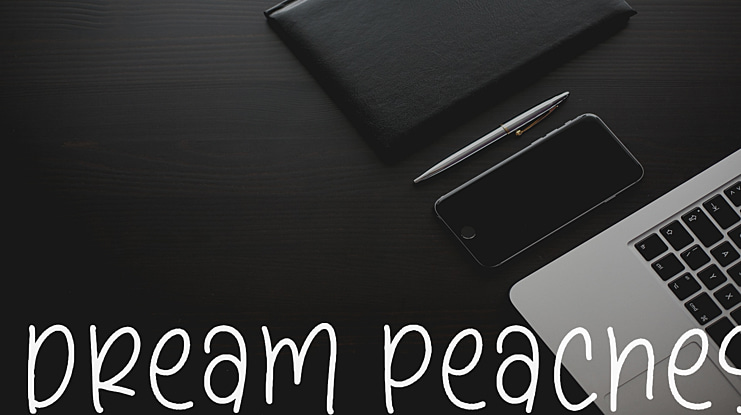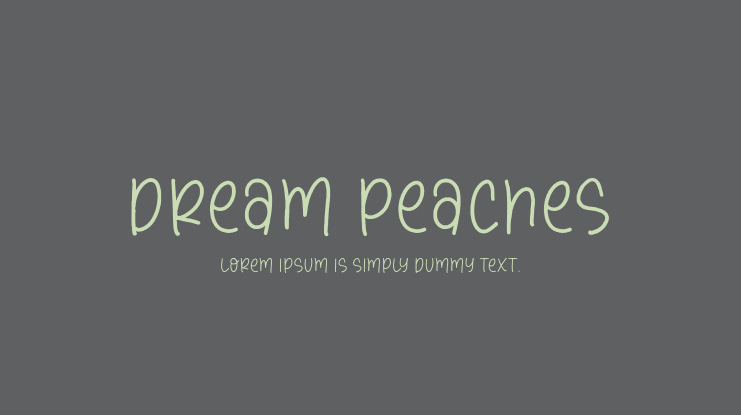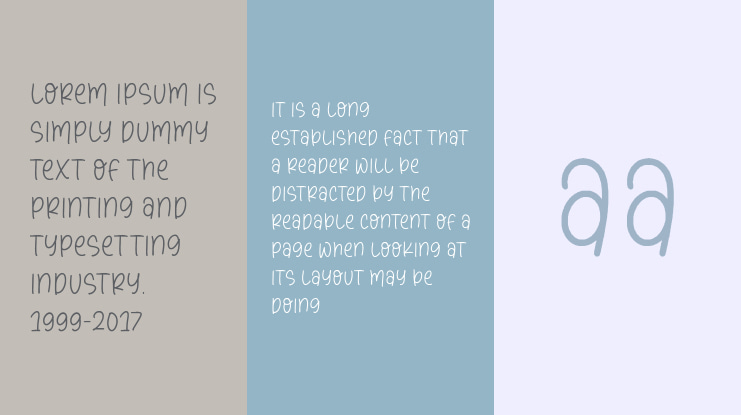
Dream Peaches Font
Introducing by Balpirick Studio.
Dream Peaches - a monoline handwritten that's clean, elegant and perfect for a range of design projects! With its smooth, effortless lines and understated sophistication, this font is the perfect choice for those who want a modern look that's still timeless in its appeal.
Crafted with precision and care, this font is incredibly versatile and can be used for a range of design projects, including logos, branding, invitations, packaging, and more. With its simple yet refined aesthetic, it's sure to make a lasting impression on anyone who sees it.
This font only has allcaps letters.